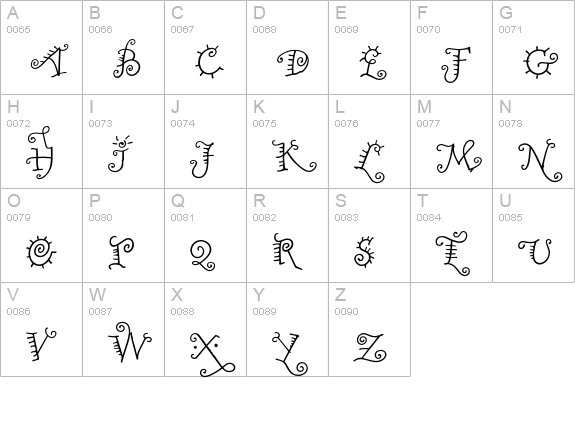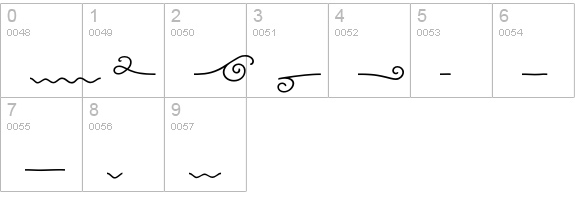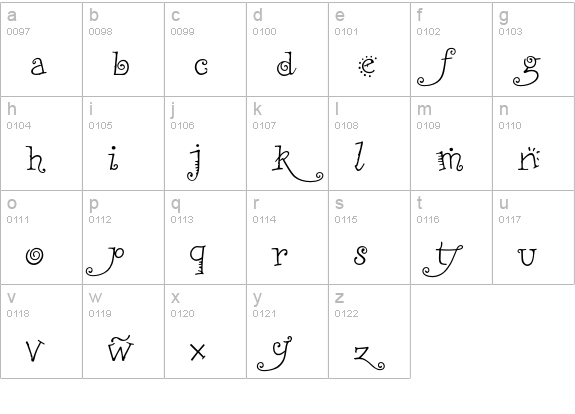
RemedySingleExtras Font Details
RemedySingleExtras is a stunning and versatile font that will take your designs to the next level. With its unique and artistic flair, this font is perfect for adding a touch of elegance and sophistication to any project. Whether you're creating a stylish logo, designing a captivating poster, or crafting a memorable website, RemedySingleExtras will make your text stand out. This font offers a wide range of captivating extras that will give your designs an extra edge. From stylish swashes and decorative elements to eye-catching ligatures, RemedySingleExtras offers endless possibilities for creative expression. With its attention to detail and impeccable craftsmanship, this font is sure to impress even the most discerning designers. One of the best things about RemedySingleExtras is that it is free to download at FontsMarket.com. This means that you can enjoy all the amazing features of this font without spending a dime. Whether you're a professional designer or a hobbyist, this font is a must-have in your collection. With its freely available download, RemedySingleExtras offers accessibility and convenience. No need to worry about breaking the bank or searching for alternative options. Simply head over to FontsMarket.com and get your hands on this exceptional font. So why wait? Elevate your designs with RemedySingleExtras and let your creativity shine. Download this font today and unlock a world of possibilities for your next project.